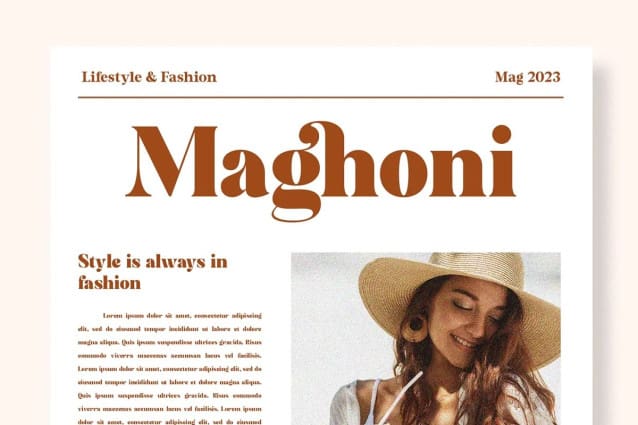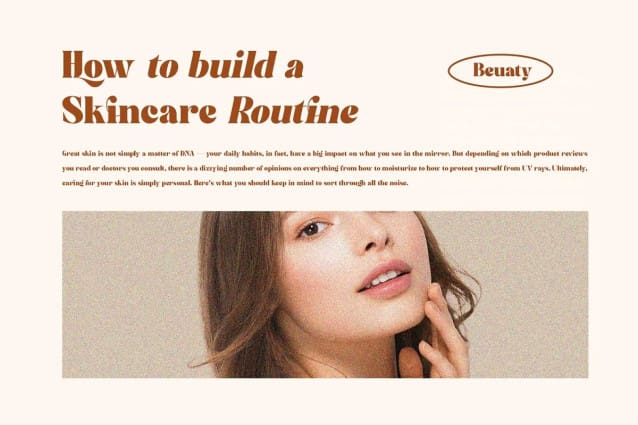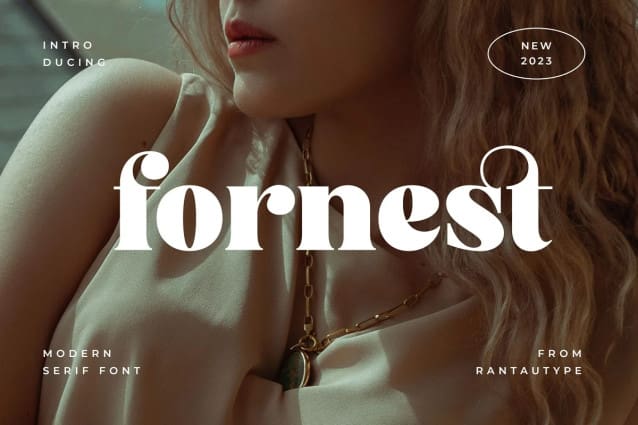
Fornest Font
Fornest Font is a beuatiful upper and lower modern – with a complementary italic version. It’s to good to make variant on your work. I’ve also love combination the reguler and italic make it more cool.